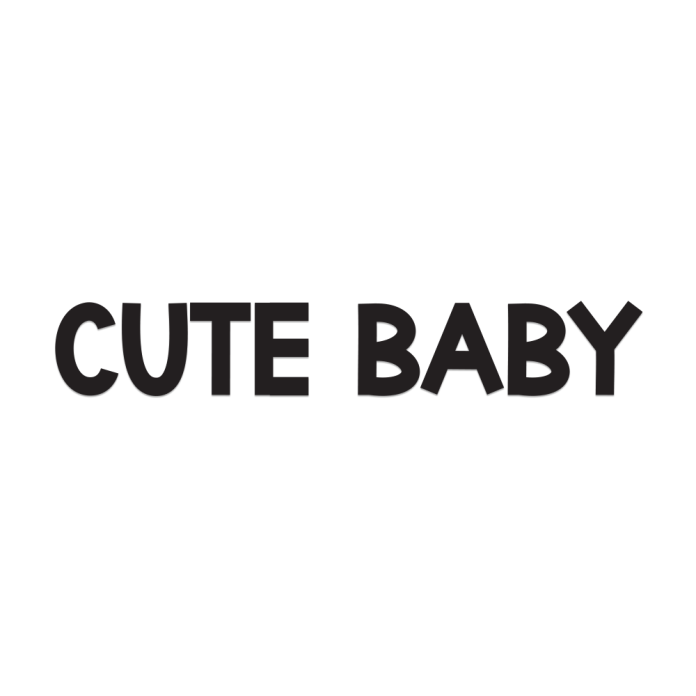
Cute Baby is a sweet and cheerful display font designed to bring smiles and joy to any project. With fun shapes and soft curves, this font captures the innocence and wonder of childhood.
Perfect for baby products, kids’ apparel, birthday invitations, nursery prints, toys packaging, and playful branding, Cute Baby adds a delightful and loving touch to your creative work.
All Caps Font with Display Style
Rounded & Fun Characters
Numbers & Punctuation
Kid-Friendly & Whimsical Feel
Multilingual Support
Bring a touch of cuteness to your designs with the heartwarming charm of Cute Baby.